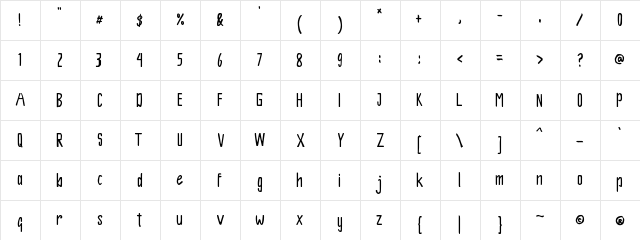
Spidole Regular
| Foundry | Flamde Studio |
| Designer | Nur Solikh |
Design Context for Spidole Typeface
Spidole takes a measured approach to typography — its balanced proportions and neutral character make it a reliable workhorse for both digital and print work.